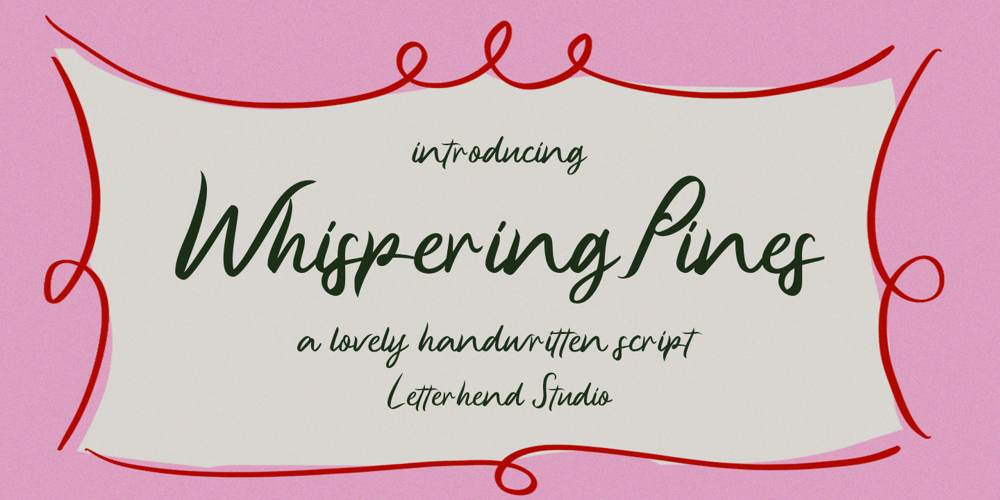
Whispering Pines Font Family was designed by Hendry Juanda and published by Letterhend. Whispering Pines contains 1 styles and family package options. Whispering Pines is a lovely handwritten script font that exudes elegance and warmth. Its flowing, natural strokes make it perfect for adding a personal and sophisticated touch to your designs.Let your creativity shine with the gentle beauty of Whispering Pines!Features : Uppercase & lowercase Numbers and punctuation Alternates Character Multilingual support PUA encoded